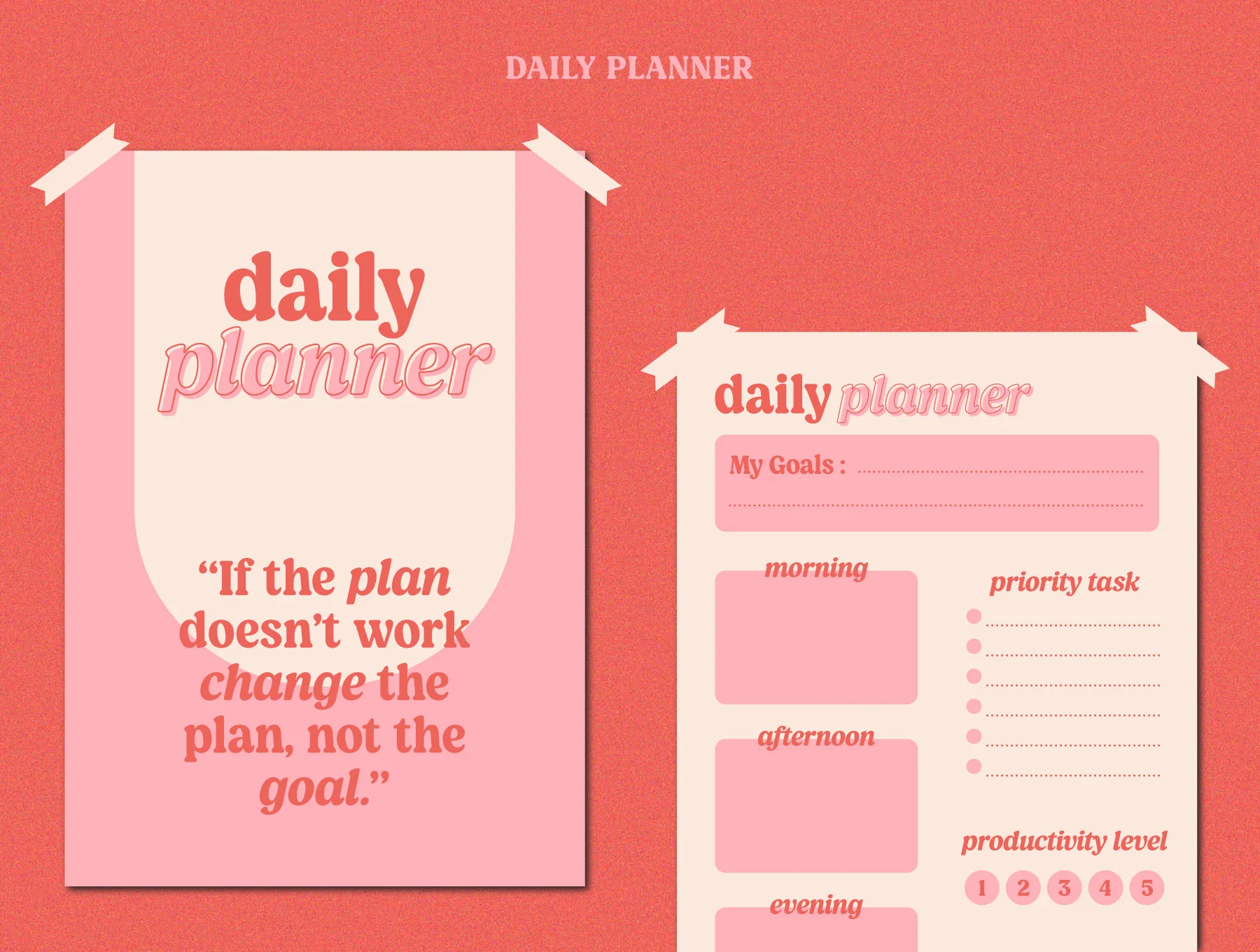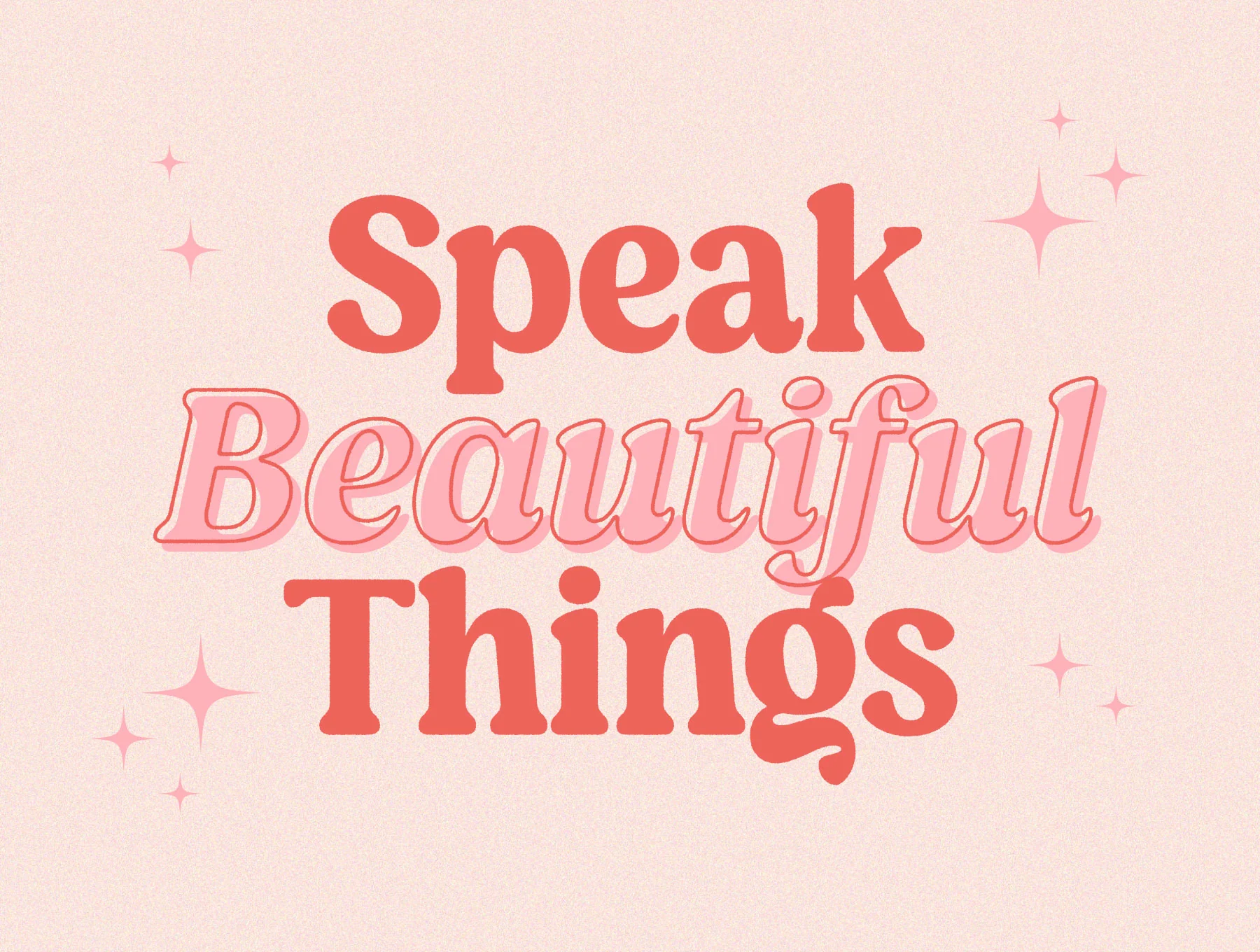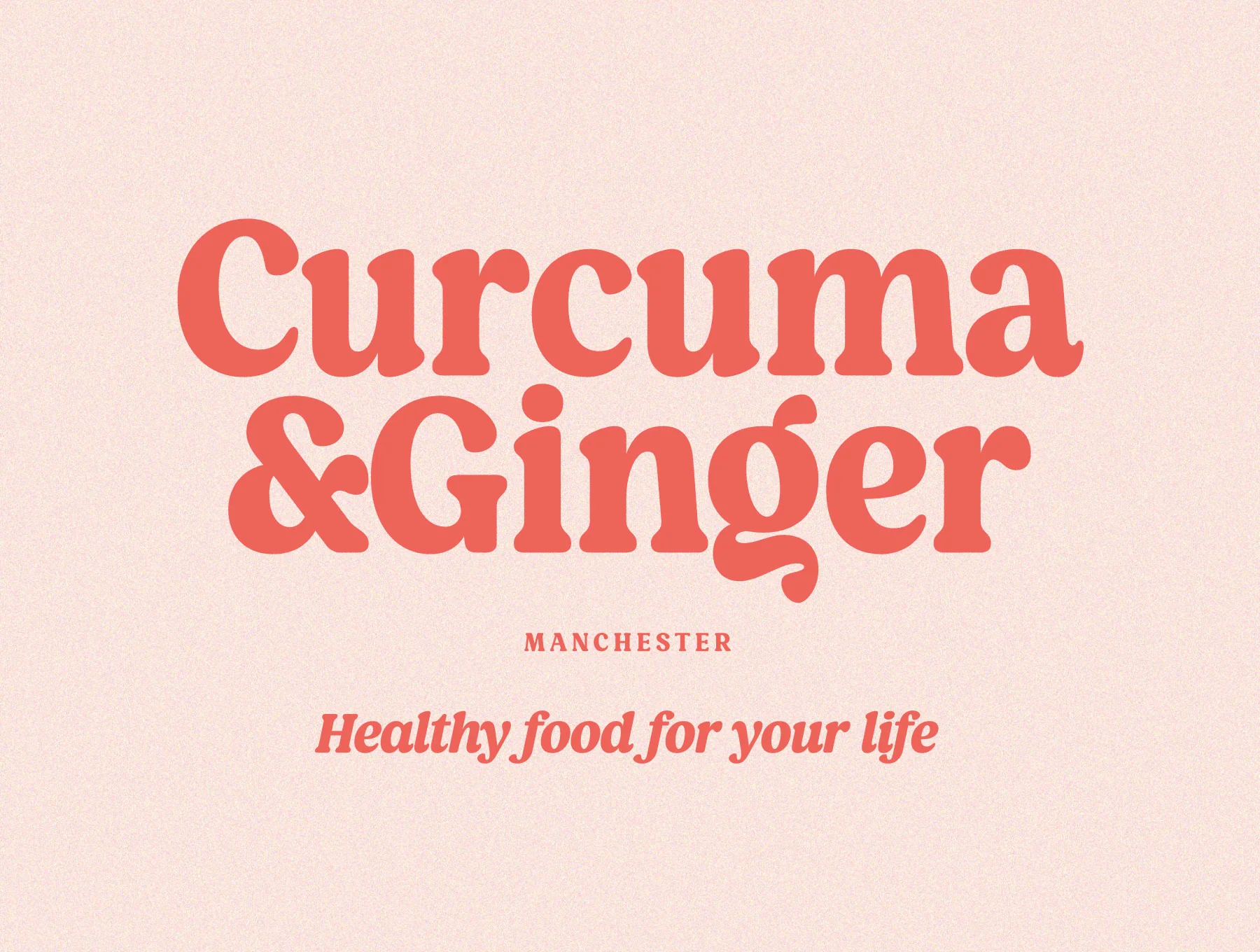
Kangmas Font
Vintage-inspired serif font with a retro feel
Capital letters, lowercase glyphs, numbers, and marks
Broad multilingual compatibility
Vintage-inspired retro mood
Rediscover retro warmth with Kangmas, a distinctive serif font that pairs vintage feeling with a fresh visual style. It includes regular and true italic cuts, with rounded serifs influenced by classic Cooper Black. Perfect for branding, logos, planners, and playful lettering, Kangmas brings nostalgic charm and modern polish to your designs.